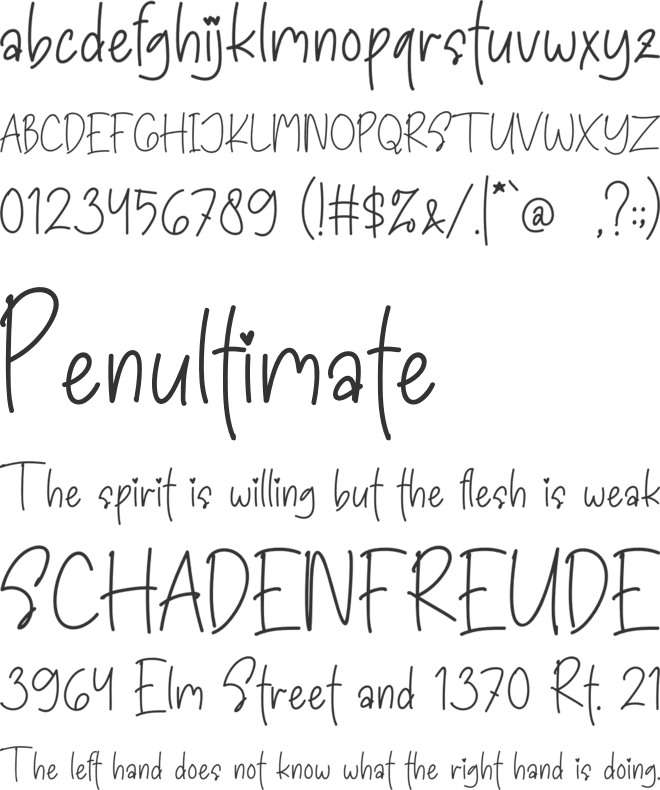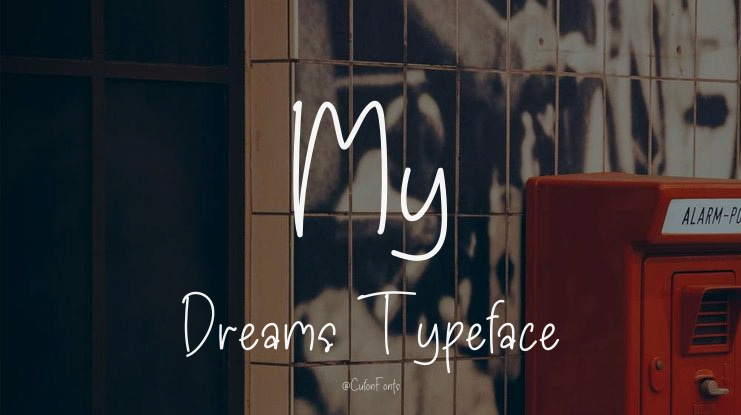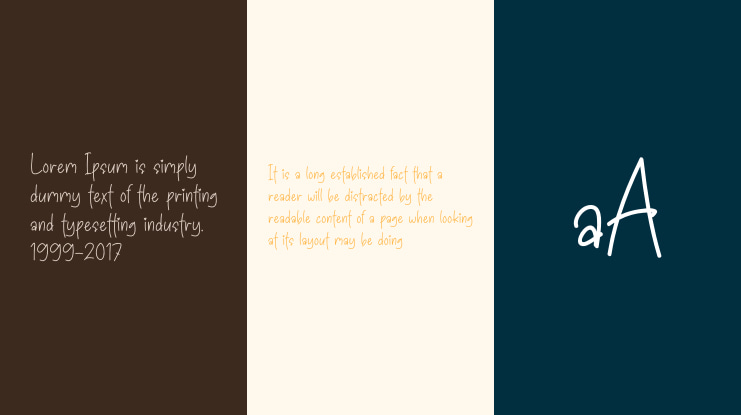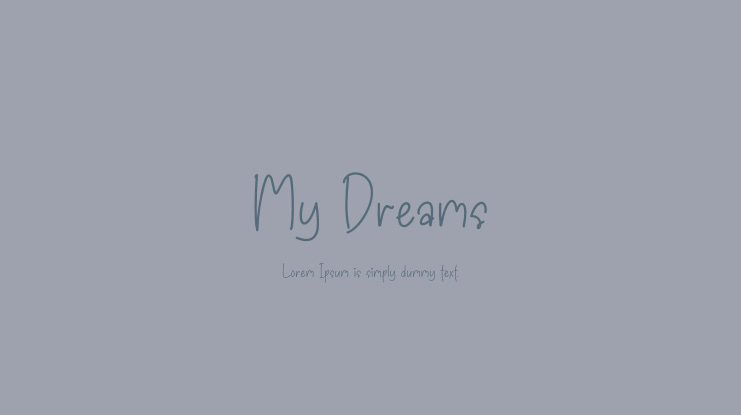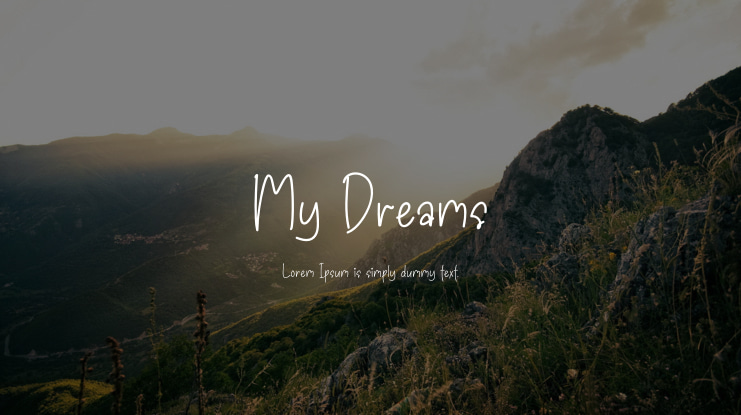
My Dreams Font
My Dreams is a beautifully crafted thin-lettered handwritten font, designed to become a favorite for any creative project. Contemporary and fresh, it is perfect for a wide range of designs. Add it to your creative projects and make them outstanding!